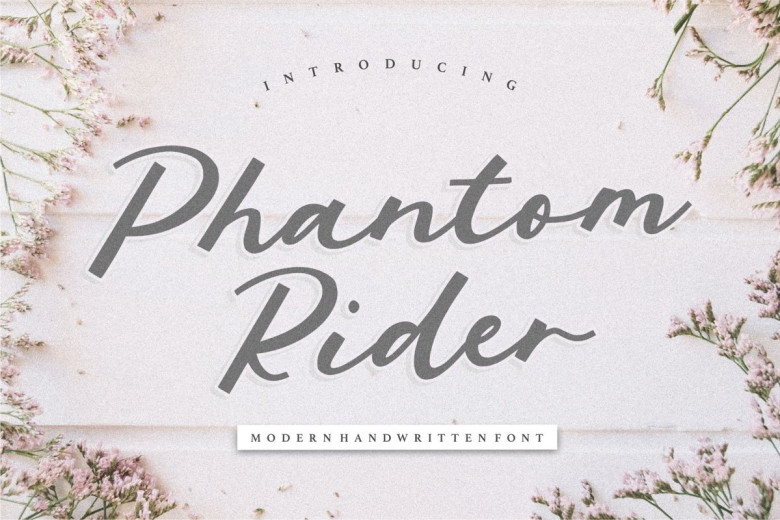
Phantom Rider Handwritten Script Font
Phantom Rider Handwritten Script Font is a font with distinctive handwritten characters perfect for branding projects, logos, wedding designs, media posts, advertisements, product packaging, product designs, labels, photography, watermarks, invitations, stationery, and any project who need handwritten dishes.